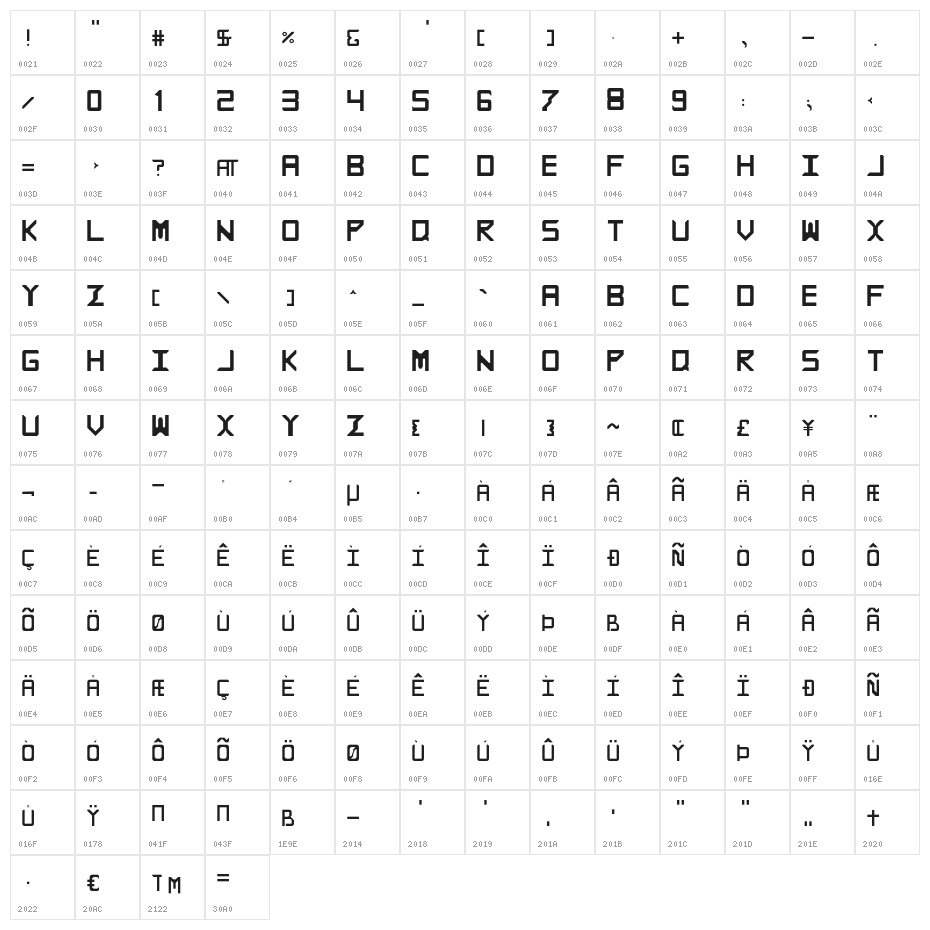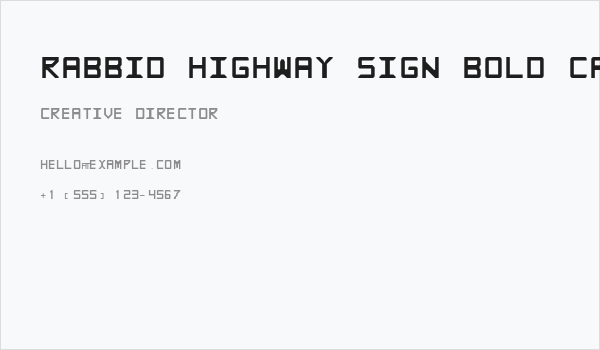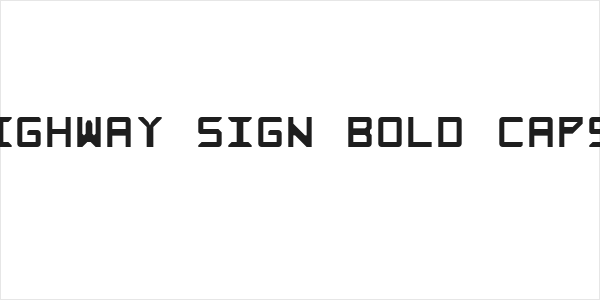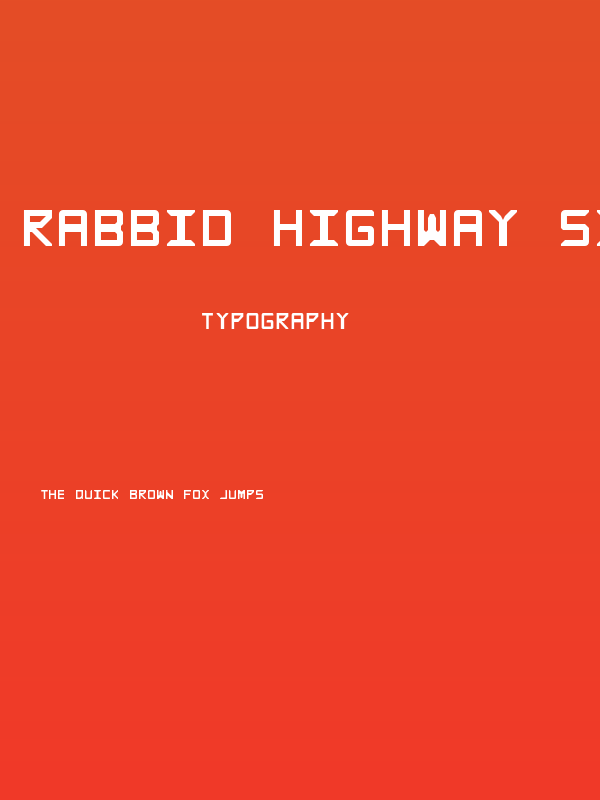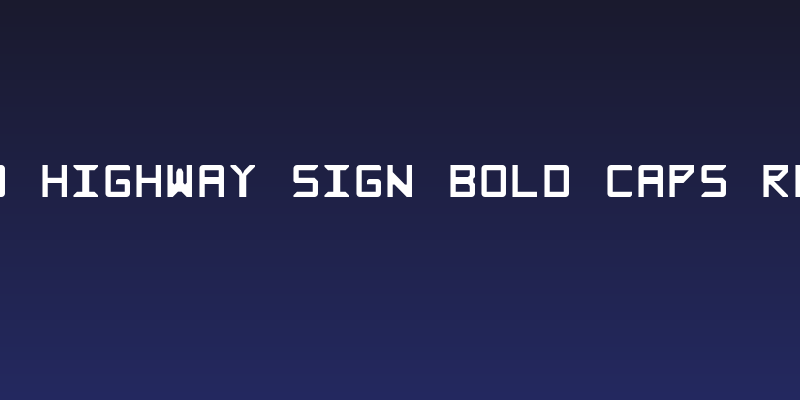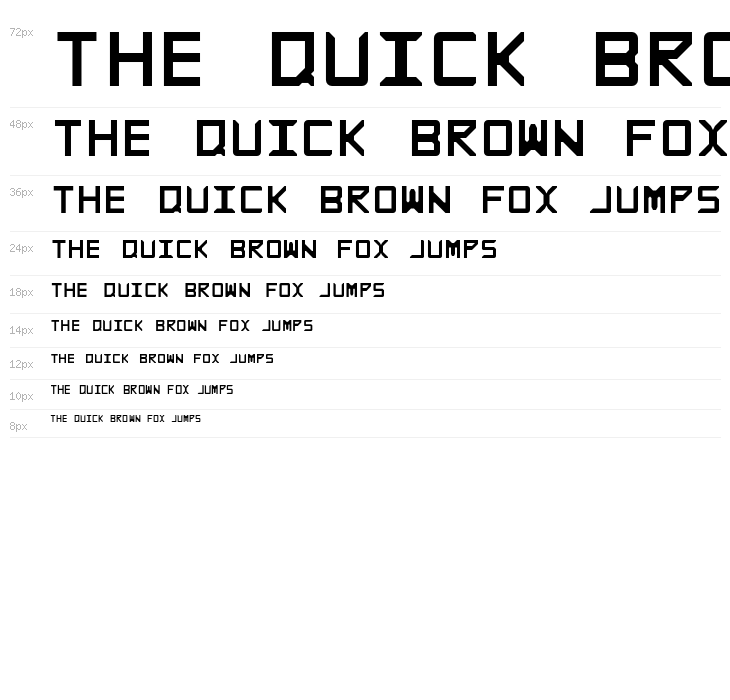
Rabbid Highway Sign Bold Caps Regular Font
Rabbid Highway Sign Bold Caps Regular Description
This font features a bold and geometric design with a strong, industrial feel. The characters are constructed with uniform stroke widths, giving it a robust and sturdy appearance. The uppercase letters are particularly striking, with sharp angles and a blocky structure that conveys a sense of strength and reliability. The numerals and special characters maintain this consistent style, ensuring a cohesive look across all text. The font's design is reminiscent of highway signage, making it highly legible and ideal for situations where clarity is paramount. Its boldness and simplicity make it suitable for a variety of applications, from signage to branding.
| Use Case | Headlines, Logos, Signage |
| Proposed Projects | Ideal for highway signage, branding, posters, and any project requiring high legibility and impact. |